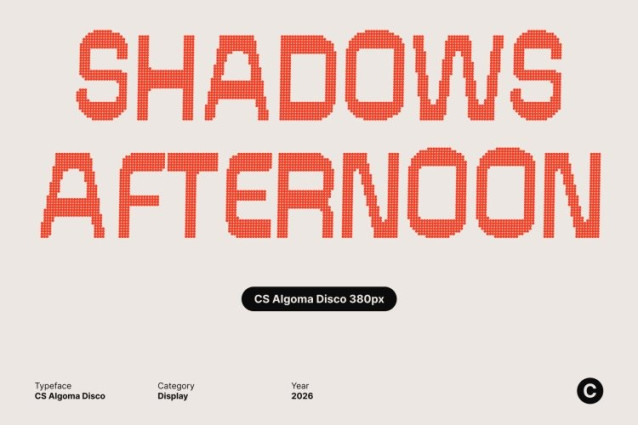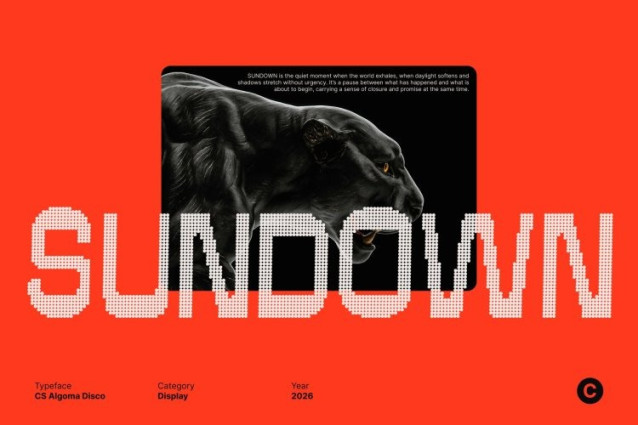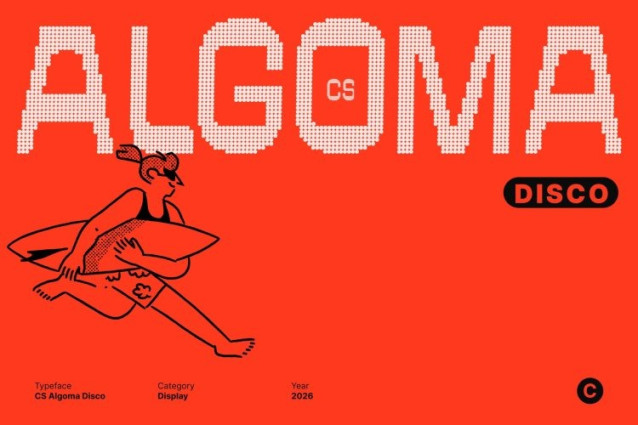
CS Algoma Disco Font This is a reverse contrast sans serif display font that fuses retro charm with modern design precision. Built from bold geometric shapes and modular letterforms, it delivers a playful yet structured personality. The distinctive reversed contrast creates an eye-catching rhythm, giving each character a dynamic presence that feels nostalgic, experimental, and contemporary at once.
Retro Inspiration with Disco-Era Spark
Inspired by mid-century typography, classic signage, and vintage graphic styles, channels retro aesthetics through a modern lens. The unconventional contrast reversal breaks traditional letterform rules, while the disco influence adds energy, movement, and visual excitement like glowing lights and rhythmic motion brought into a clean, modern layout.
Bold Letterforms with Striking Visual Rhythm
Strong construction and balanced proportions give this font clarity and confidence, even at large display sizes. Its geometric precision ensures readability, while the reverse contrast injects flair and personality. Headlines, logos, and promotional text instantly feel expressive, bold, and full of character.
Perfect for Branding, Editorial, and Promotional Design
This font is ideal for posters, branding, editorial layouts, packaging, and creative campaigns that demand individuality. Its retro-modern fusion and energetic disco tone make it perfect for brands that value bold visuals, artistic experimentation, and memorable identity delivering timeless style with a modern, rhythmic pulse.